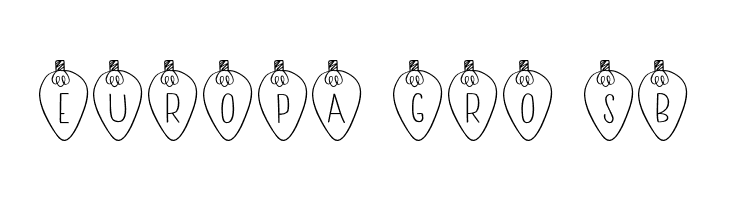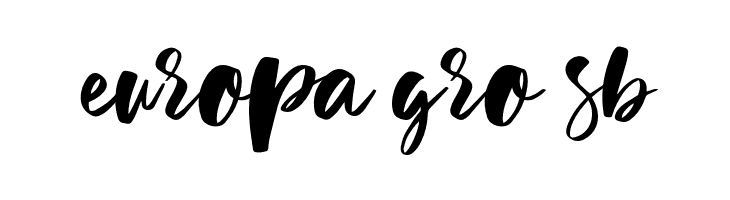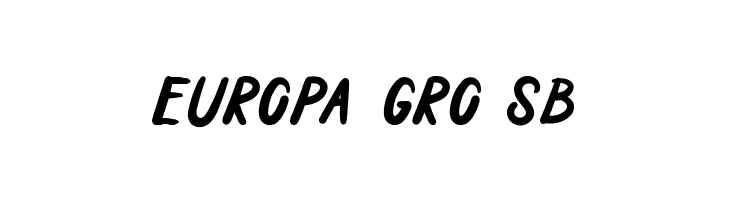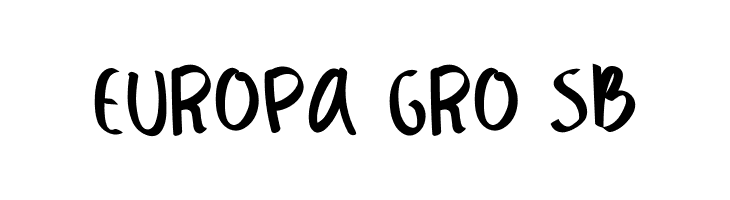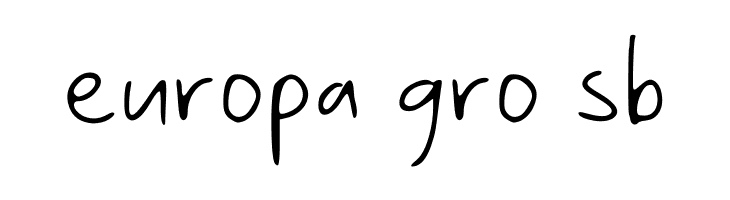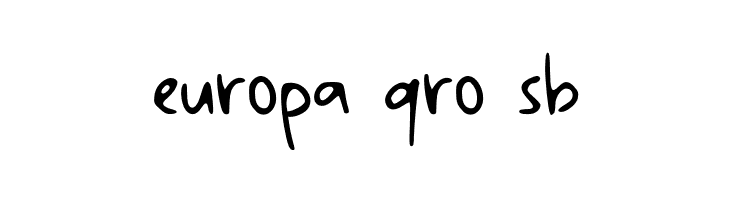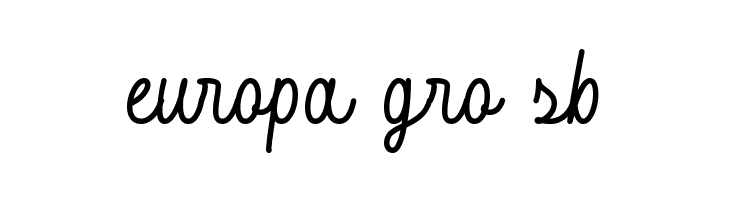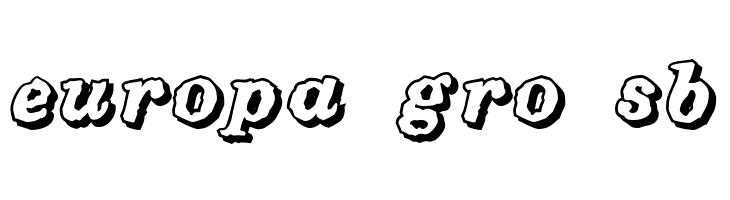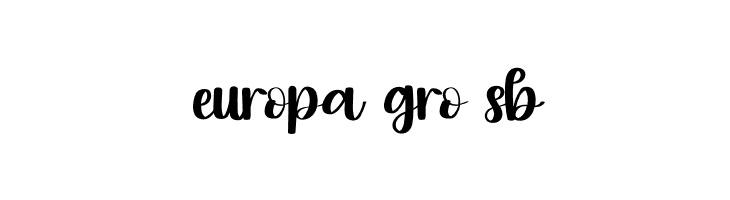
A festive, decorative font styled like Christmas light bulbs, perfect for holiday-themed projects.
A bold, flowing script font with a handwritten, elegant style.
A bold, energetic script font with fluid, cursive strokes.
A bold, expressive handwritten font with playful uppercase letters.
A playful, handwritten font with a casual and lively style.
A playful, casual handwritten font with uneven strokes and a dynamic feel.
A playful and elegant script font with a handwritten appearance.
A bold, playful font with a 3D shadow effect and rounded edges.
A playful, bold script font with a handwritten, dynamic style.
A whimsical and elegant script font with flowing loops and swirls.